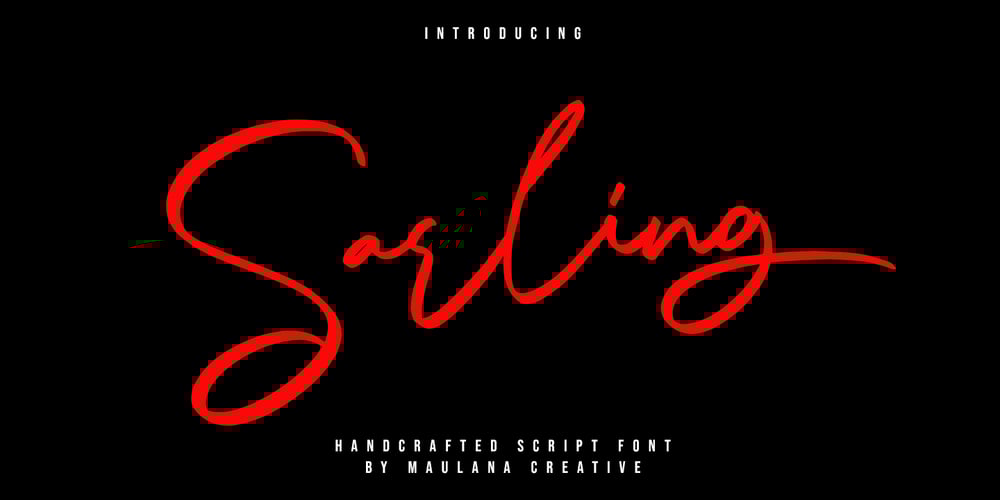
MC Sarling Font Family was designed by Gilang Maulana and published by Maulana Creative. MC Sarling contains 1 styles and family package options. Sarling monoline script font. This font is good for logo design, Social media, Movie Titles, Books Titles, a short text even a long text letter and good for your secondary text font with signature or script typeface. Make a stunning work with Sarling font.Cheers, Maulana Creative